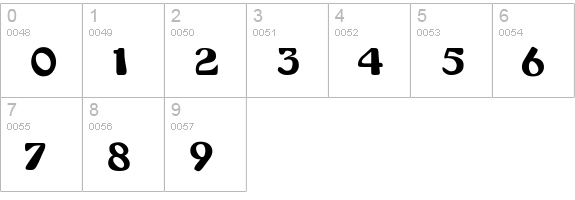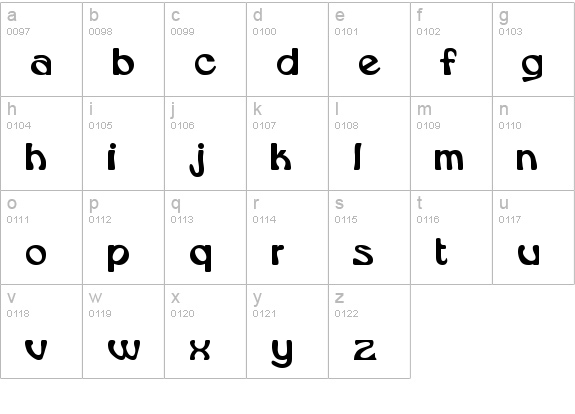
RSDaytona Font Details
Introducing RSDaytona font, a versatile and modern typeface that brings a touch of elegance to any design project. This sleek and stylish font features clean lines and a contemporary aesthetic that is perfect for a wide range of applications. RSDaytona font is available in a variety of weights and styles, making it easy to incorporate into your designs. Whether you're creating a logo, poster, website, or any other project, this font will help you make a bold statement. The best part? RSDaytona font is completely free to download at FontsMarket.com. Don't miss out on this amazing opportunity to add a touch of sophistication to your designs without breaking the bank. Download RSDaytona font today and elevate your projects to the next level!